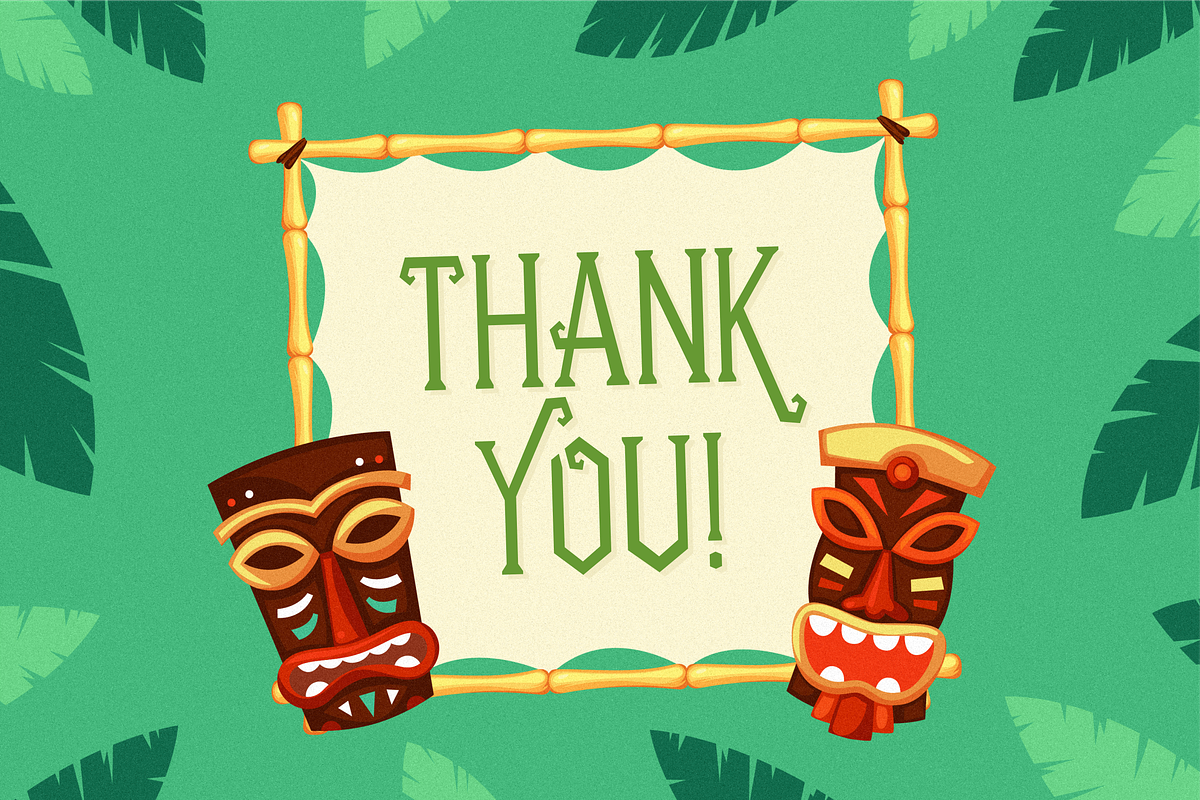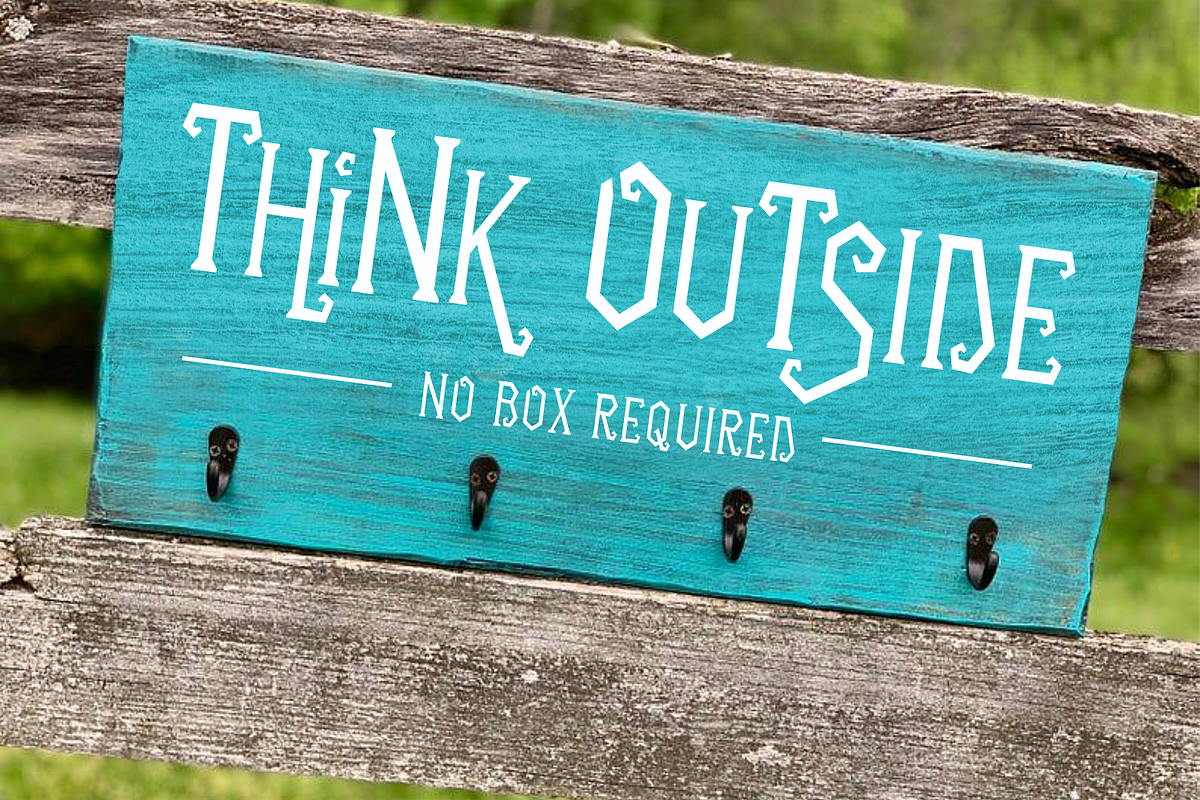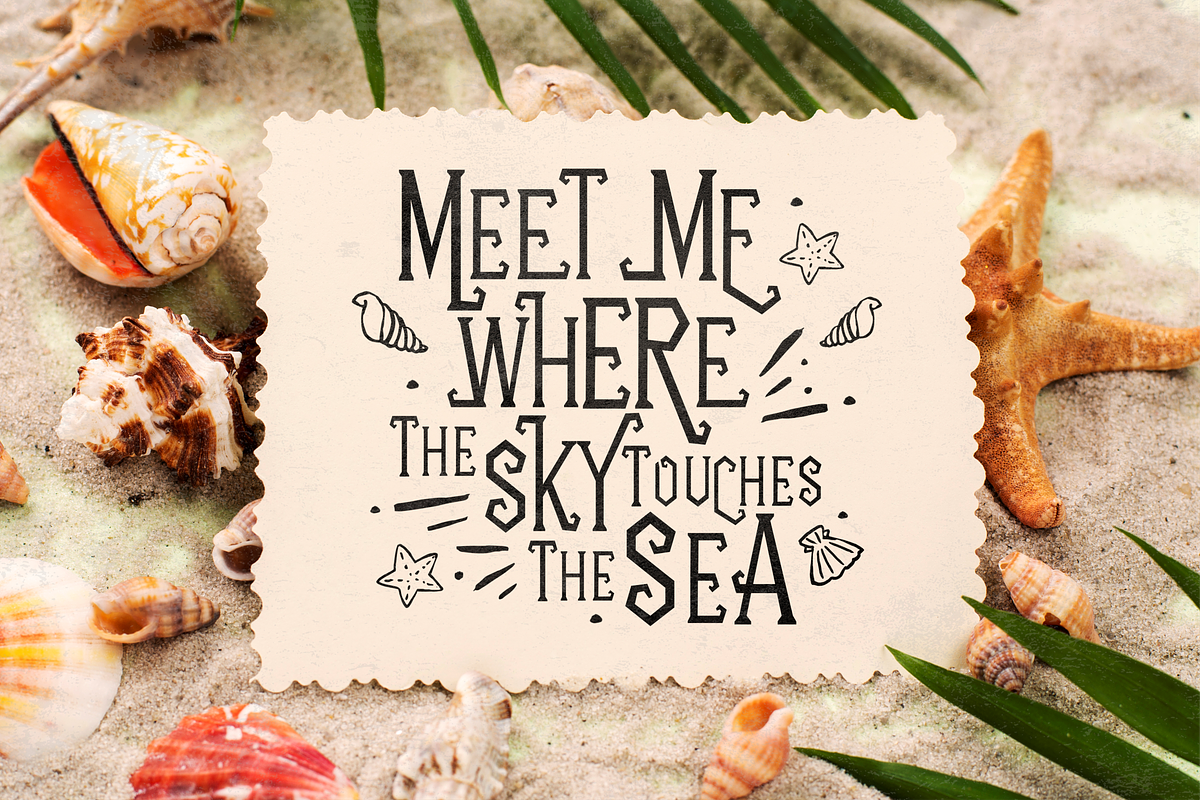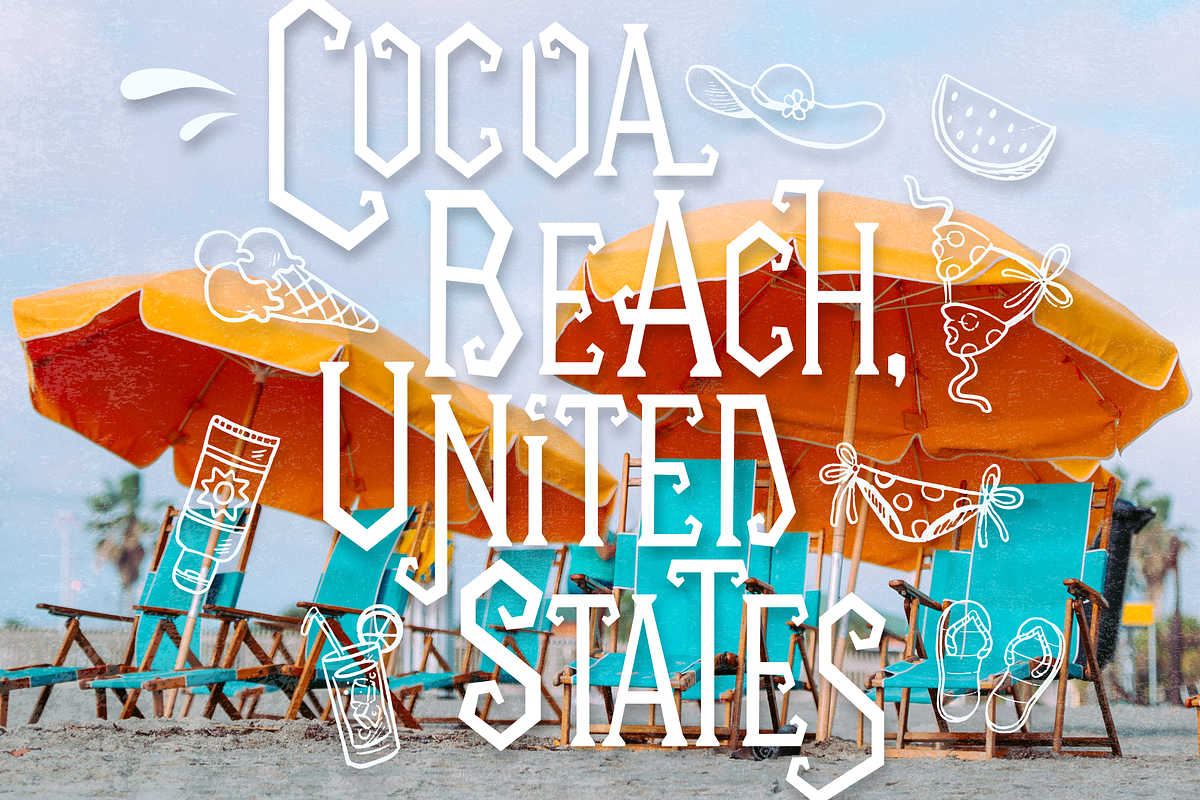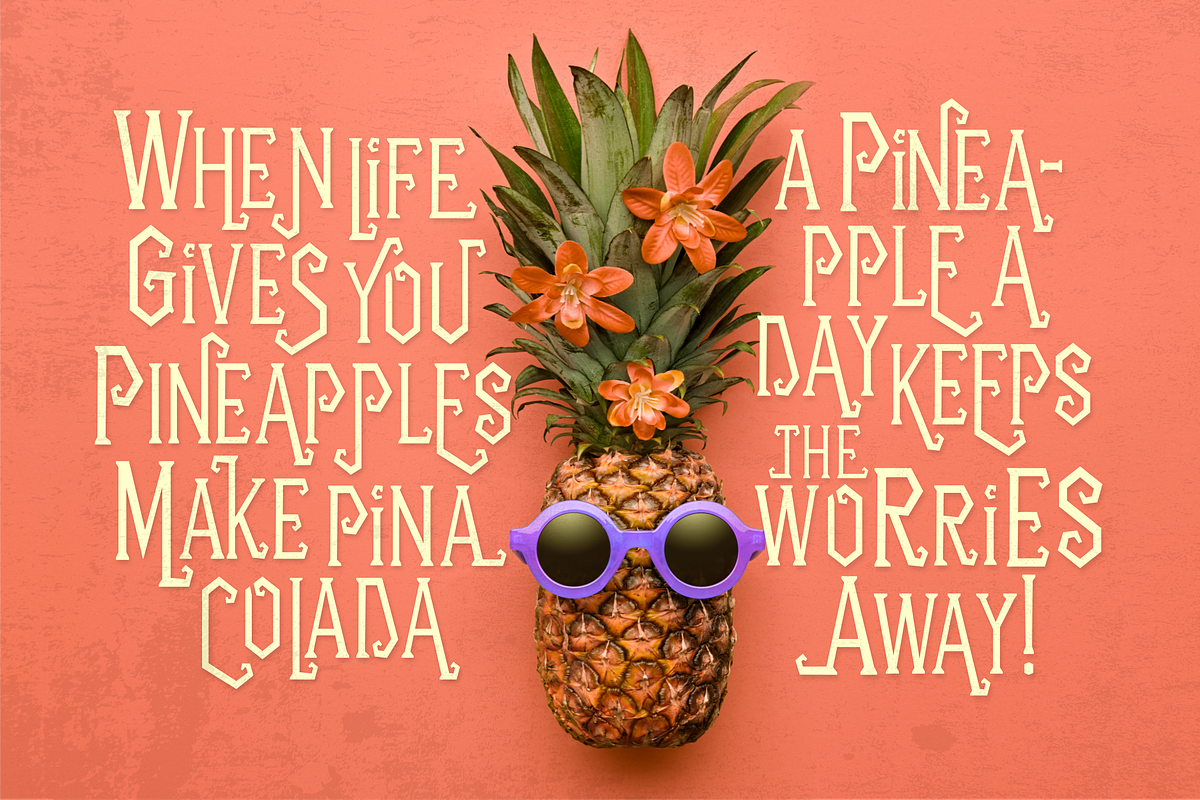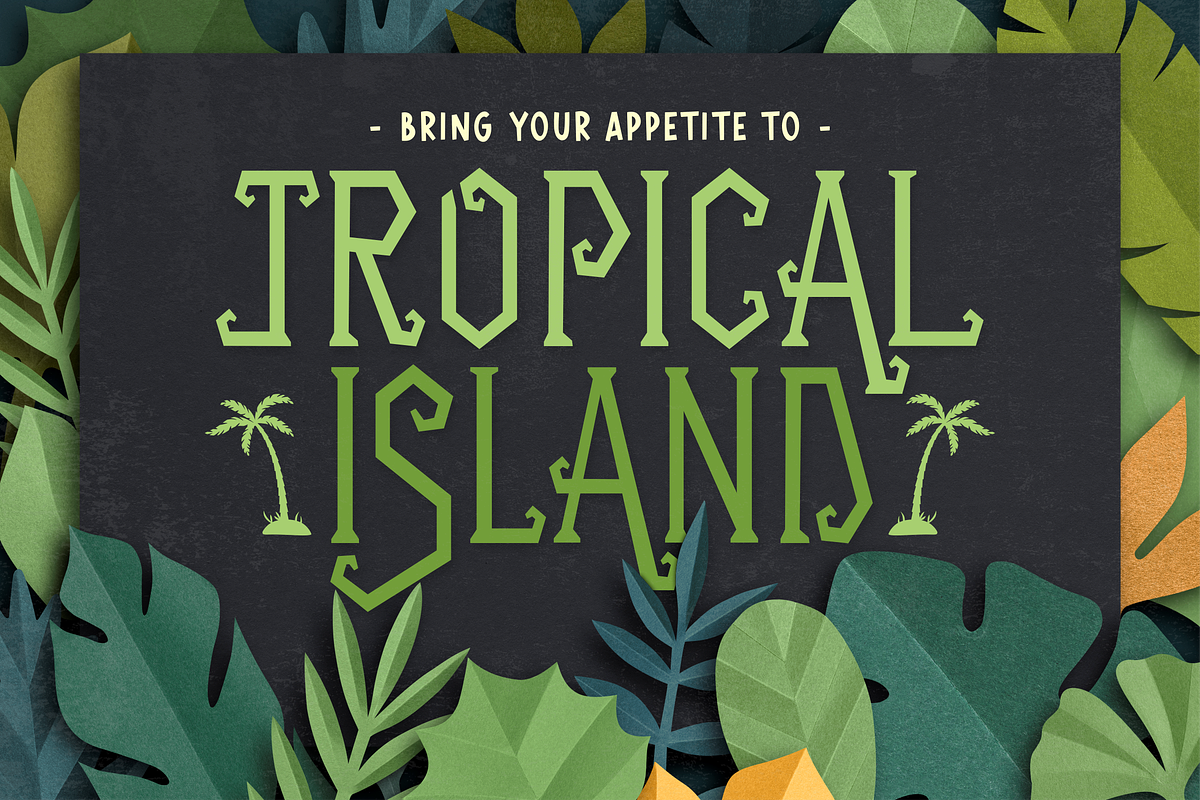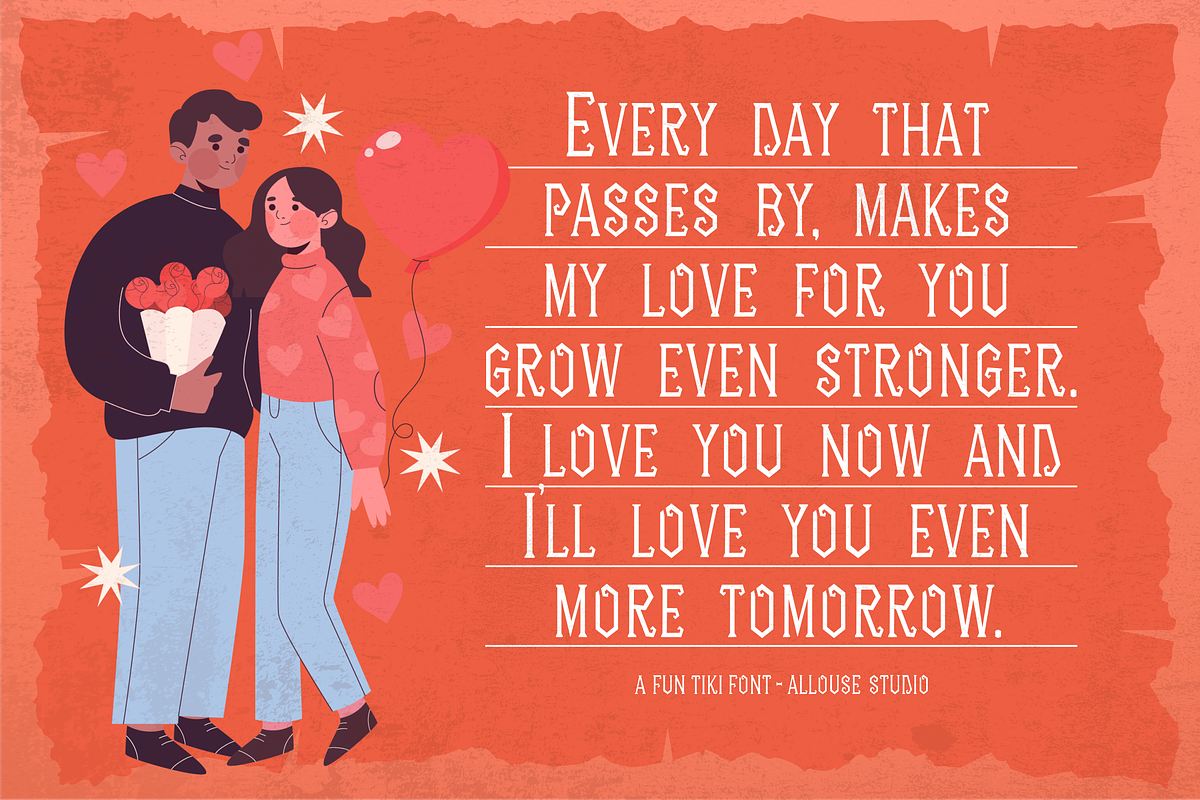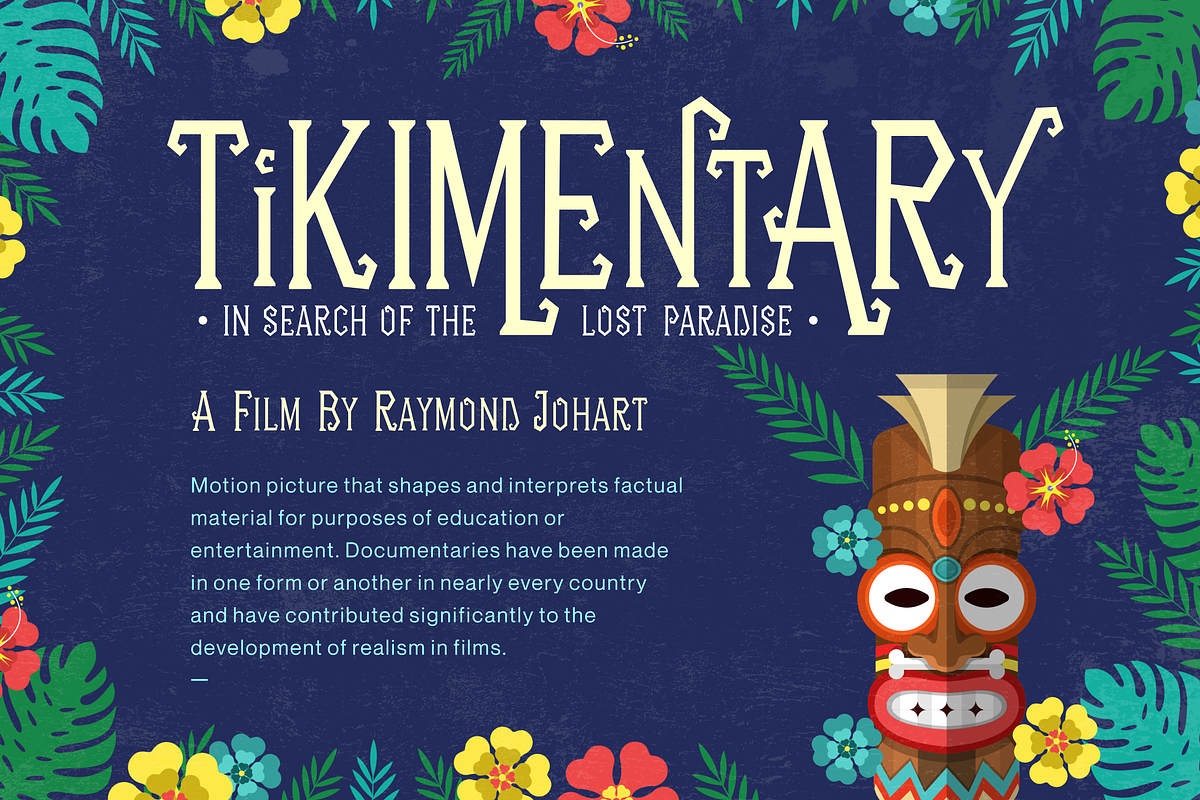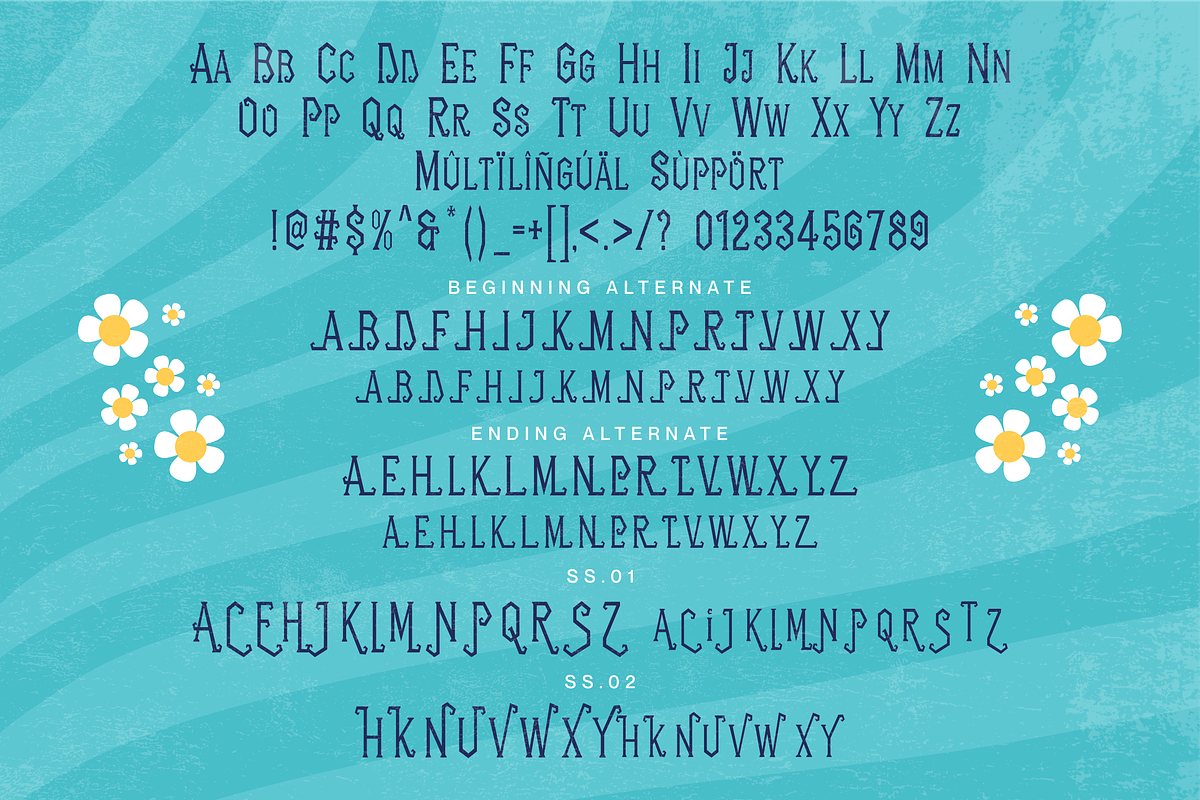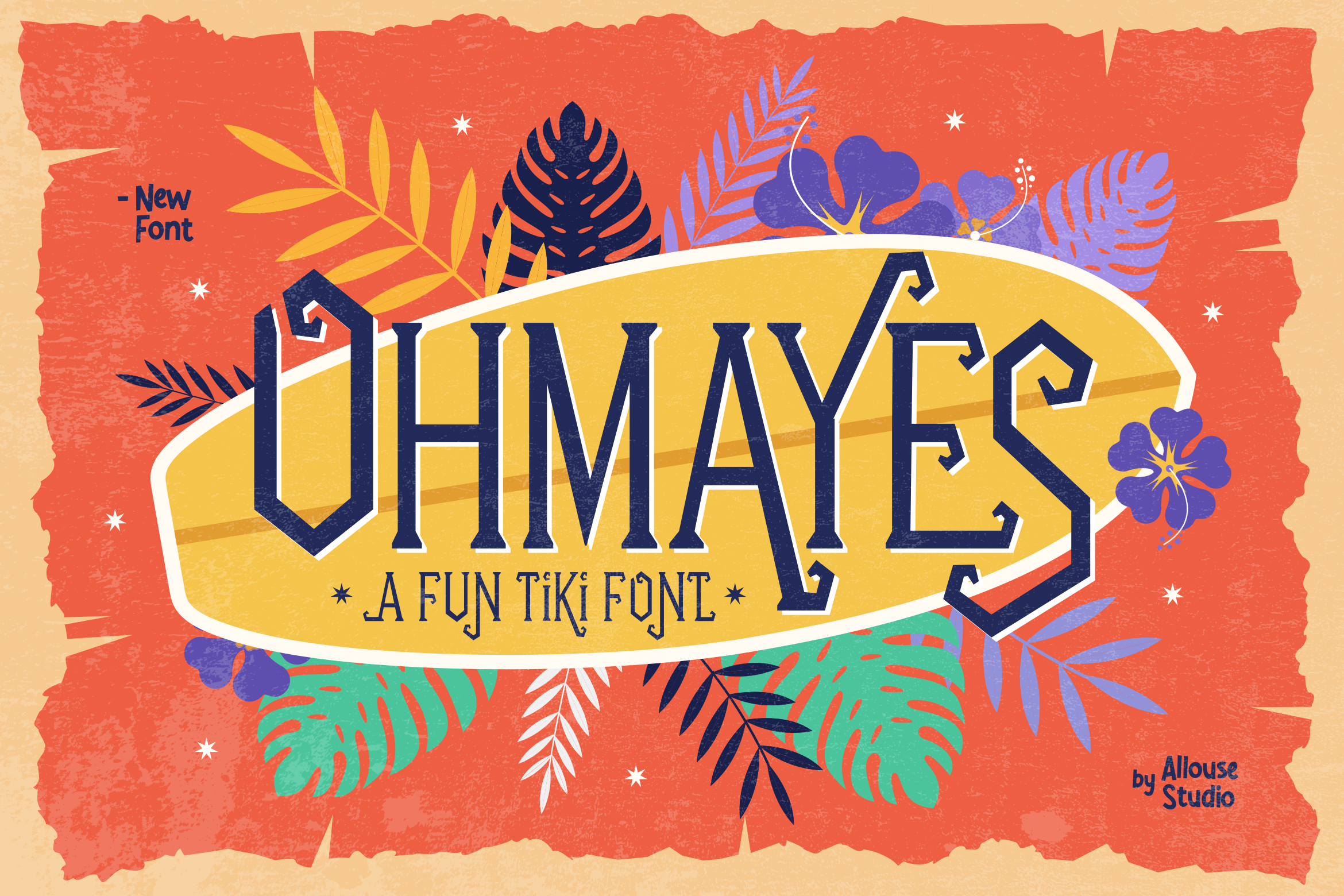
Ohmayes A Fun Tiki Font
Proudly Presenting, Ohmayes A Fun Tiki Font.
Ohmayes is perfect for any titles, logo, product packaging, branding project, megazine, social media, wedding, or just used to express words above the background.
Ohmayes also come with Multi-Lingual Support.